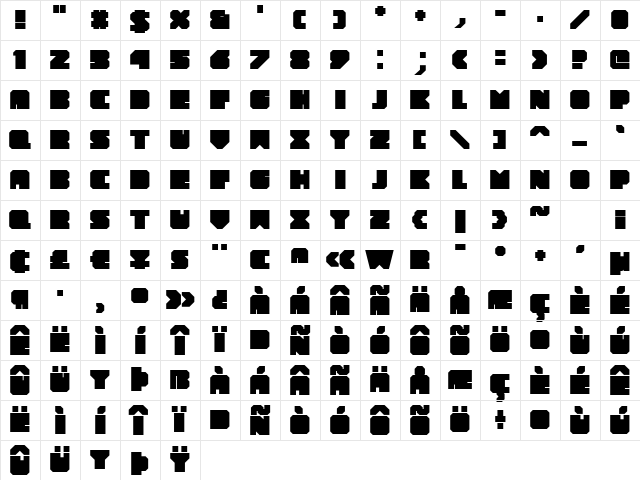
Novum ExtraBold
Foundry: YouWorkForThem
Designer: Michael Cina
Design Context for Novum
Novum is a composed and adaptable typeface that performs quietly and consistently across a wide range of design contexts. Its bold stroke weight gives it real presence on the page.